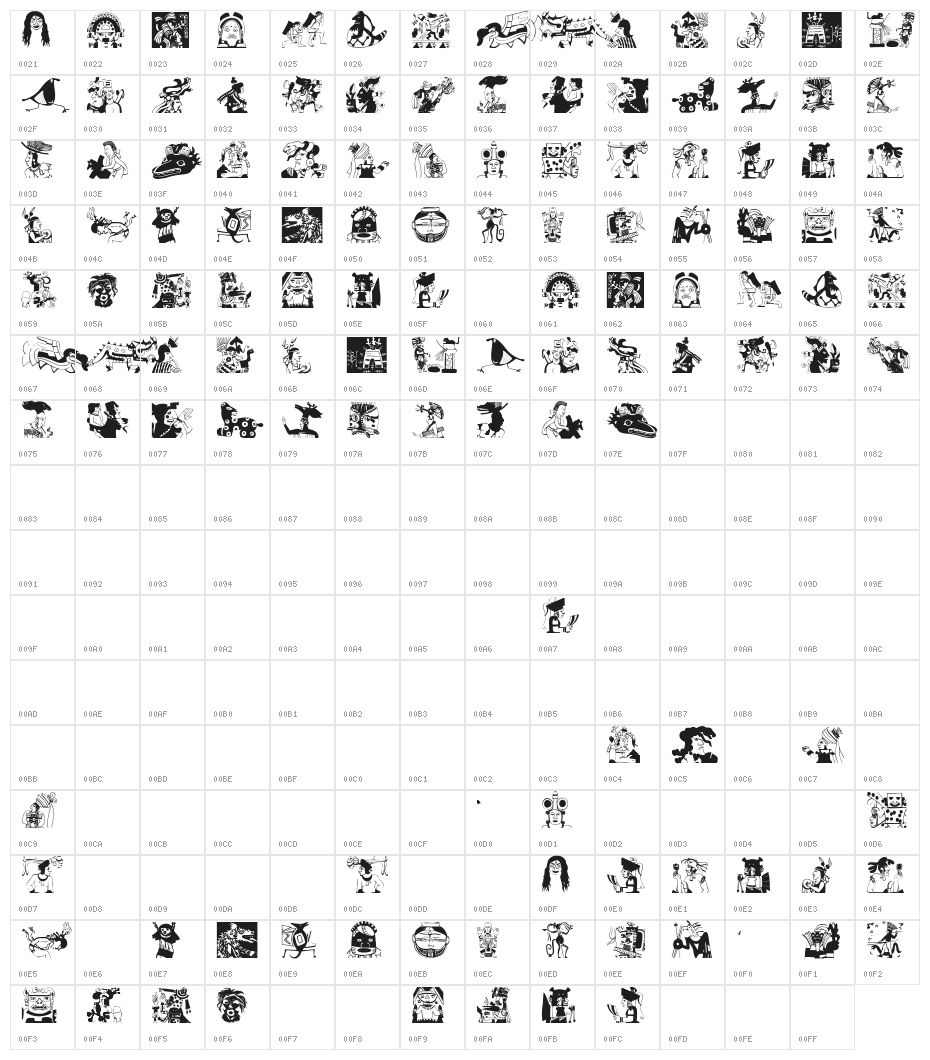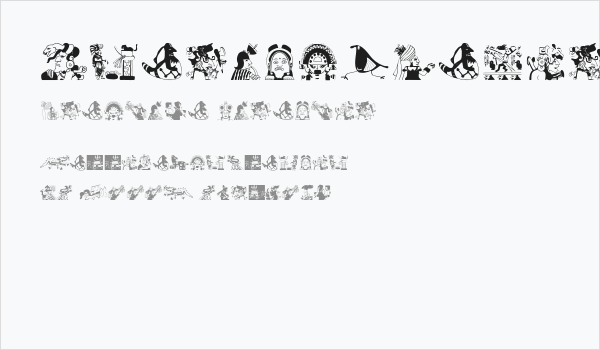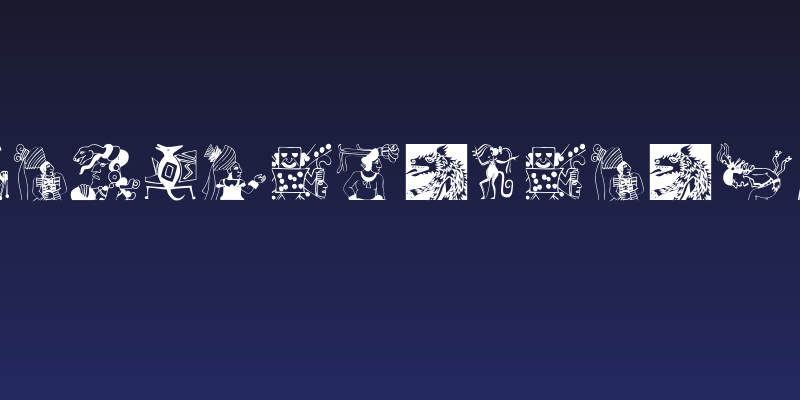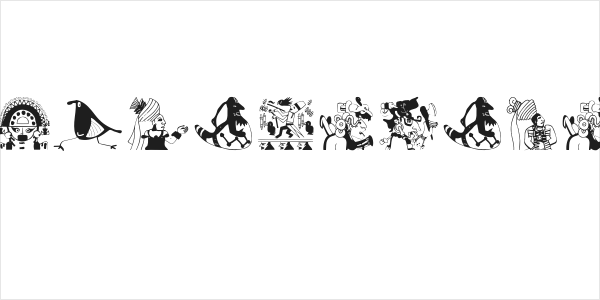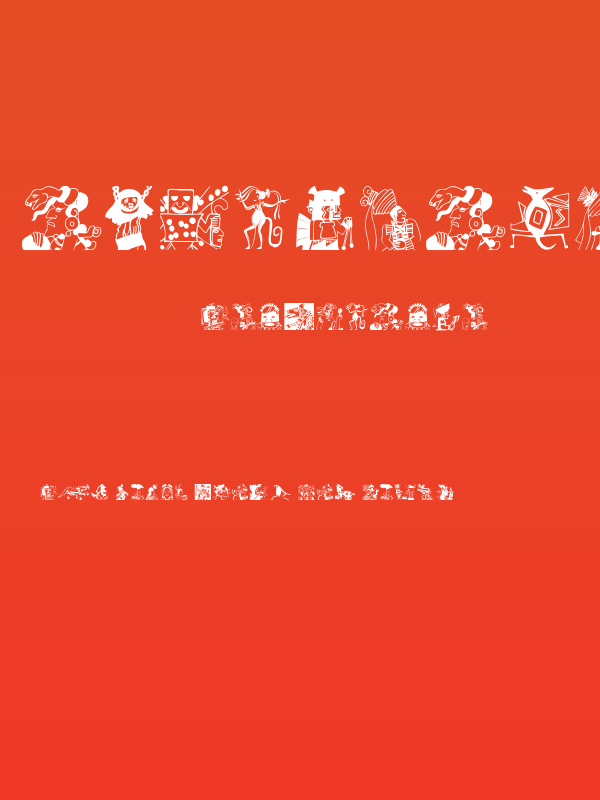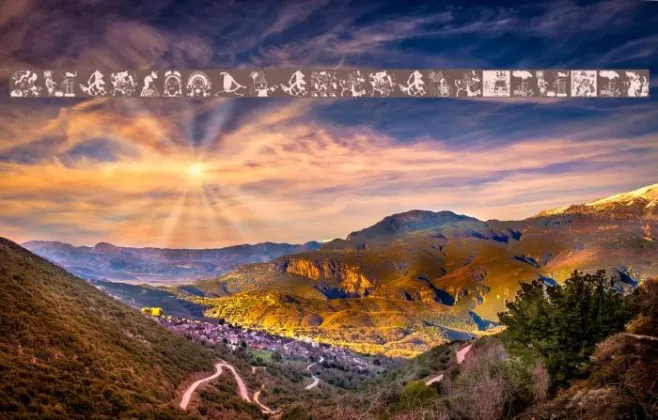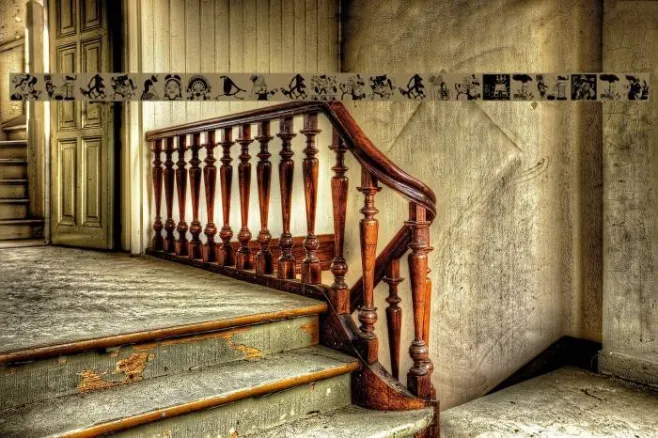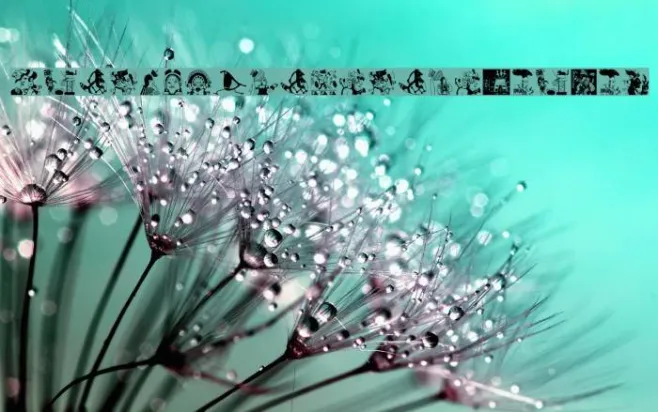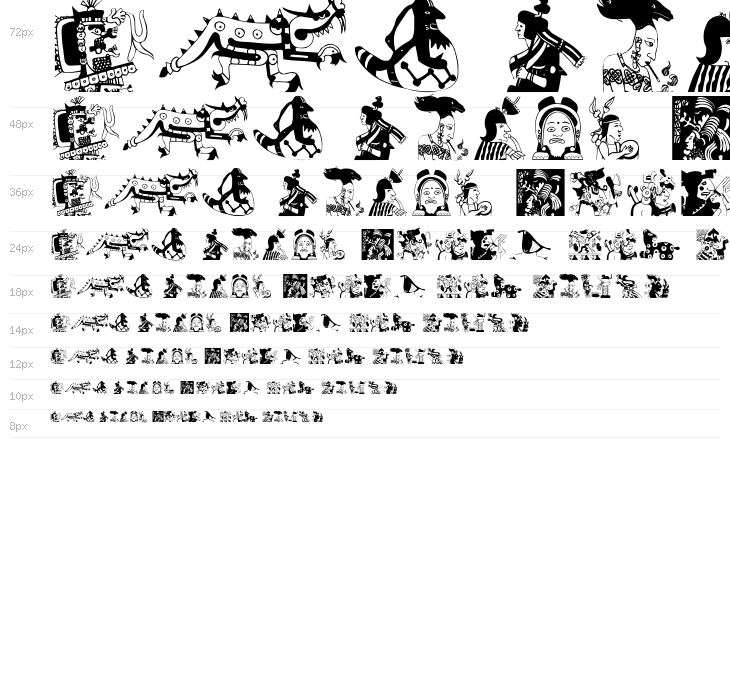
AmericanBeforeColumbus Font
AmericanBeforeColumbus Description
A highly decorative and illustrative font featuring glyphs inspired by pre-Columbian American art and iconography, with each character represented as a unique pictogram or scene rather than traditional letterforms.
| Overall Style | Decorative, Ethnic, Historical |
| Use Case | Logos, Posters, Headlines, Themed graphics |
| Proposed Projects | Educational posters, museum exhibits, cultural event branding, themed invitations, historical presentations. |